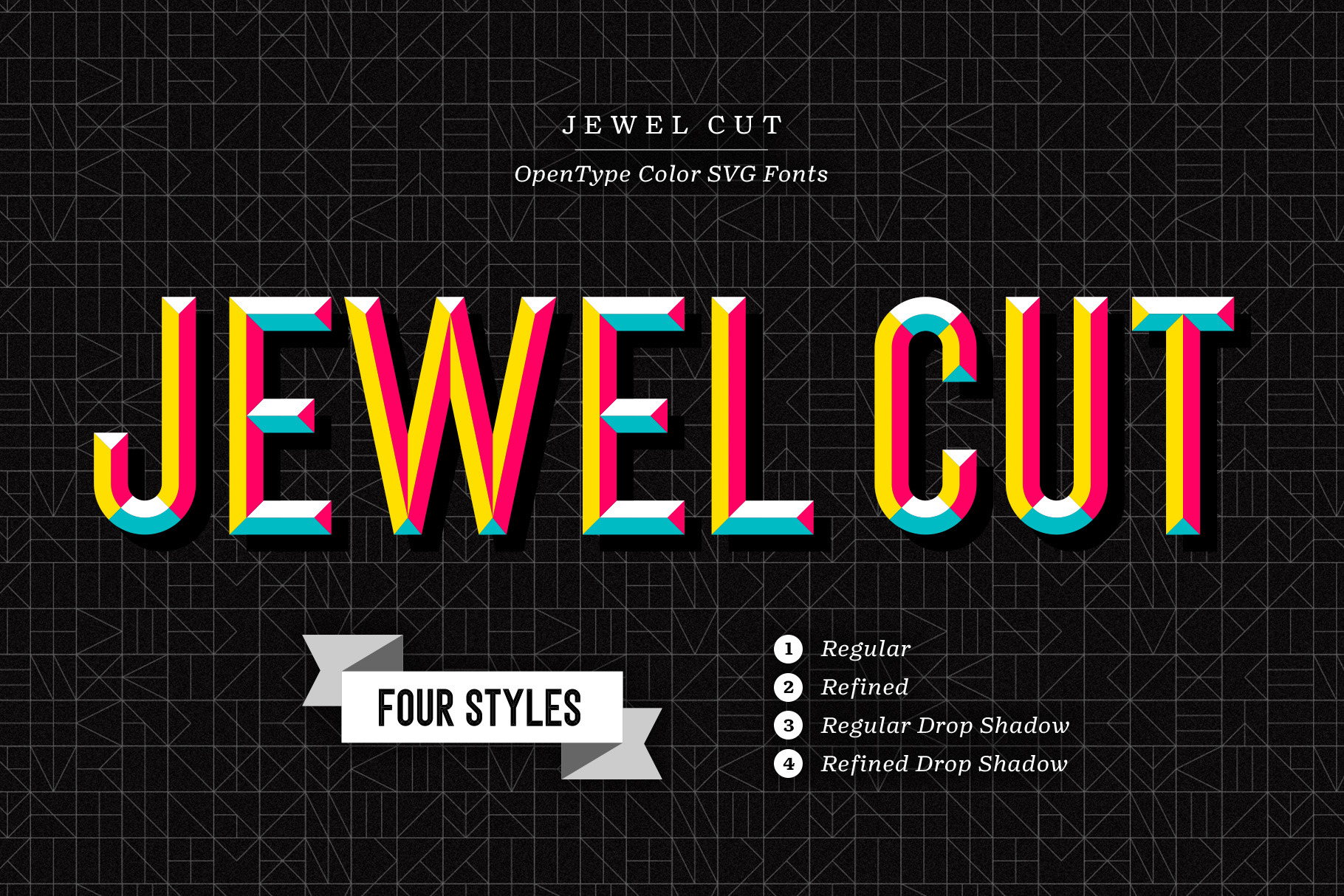
Jewel Cut - Color SVG OpenType Font
Add some luster to your layouts with Jewel Cut, a color SVG OTF font family that is flashy yet firm. This all-caps vector based typeface offers four chiseled styles that will cater to your high-rolling tastes.
Jewel Cut Regular - A smart, 4-color beveled font that cleans up real nice
Jewel Cut Regular Drop Shadow - The same, but with a solid black drop shadow
Jewel Cut Refined - A more faceted, 8-color beveled font with power and provenance
Jewel Cut Refined Drop Shadow - The same, but with a solid black drop shadow